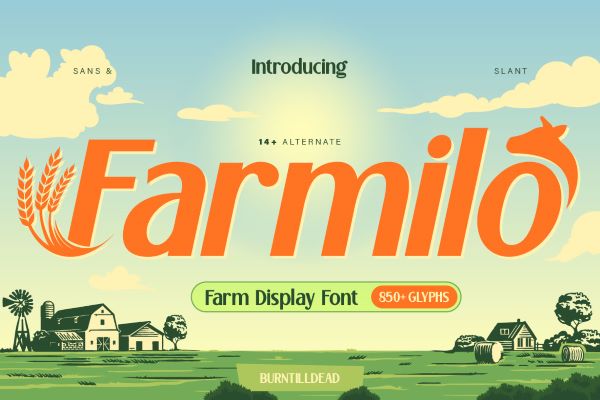
Farmilo Font
Farmilo by Eric Burntilldead is a display rustic font that draws its character from the open countryside — clean, grounded, and quietly charming. Built on a smooth sans-serif structure with a subtle slant option, it strikes a balance between modern readability and rustic warmth that few display fonts manage so naturally. Its carefully crafted alternates introduce organic details inspired by farming life. Free for personal use as a demo version; a commercial license is available from the author.